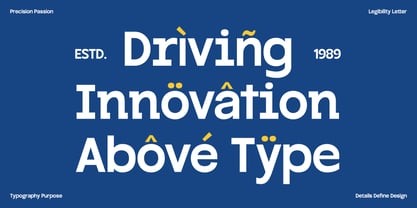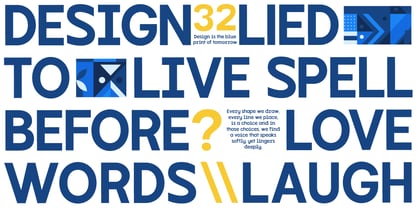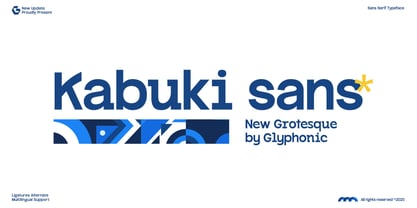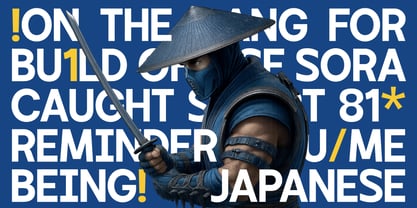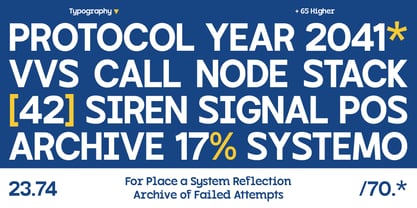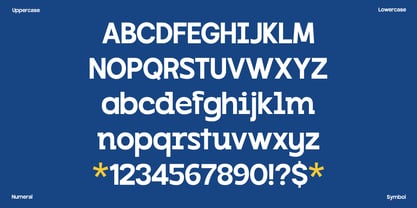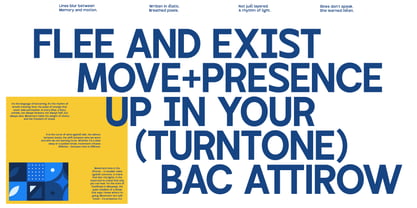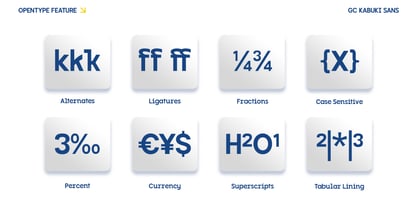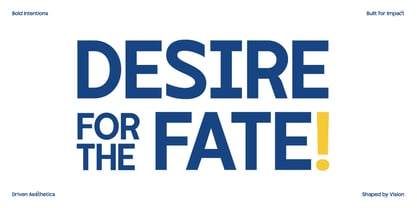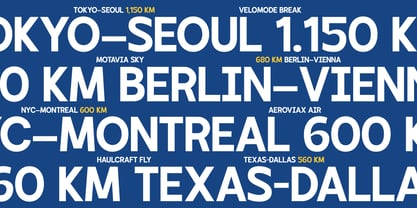
GC Kabuki
by Onyx Studio
The GC Kabuki Font Family was designed by Muhammad Hafiizh Solana and published by Onyx Studio. GC Kabuki contains 1 styles. More about this family
Kabuki is a new grotesque sans-serif typeface that blends clean modernism with subtle character and visual rhythm.
Perfectly suited for headlines, branding, logos, packaging, and editorial layouts, it’s crafted to leave a lasting impression.
With its balanced proportions, neutral tone, and minimal yet distinctive letterforms, Kabuki brings personality and sophistication to any design.
Whether you're designing for fashion, lifestyle, technology, or artistic visuals, this typeface offers versatility and refined style.
Features:
+ Uppercase & Lowercase
+ Ligatures & Stylistic Alternates
+ Numbers & Punctuation
+ Multilingual Support
Make your design bold, refined, and timeless with Kabuki.
Designers: Muhammad Hafiizh Solana
Foundry: Onyx Studio